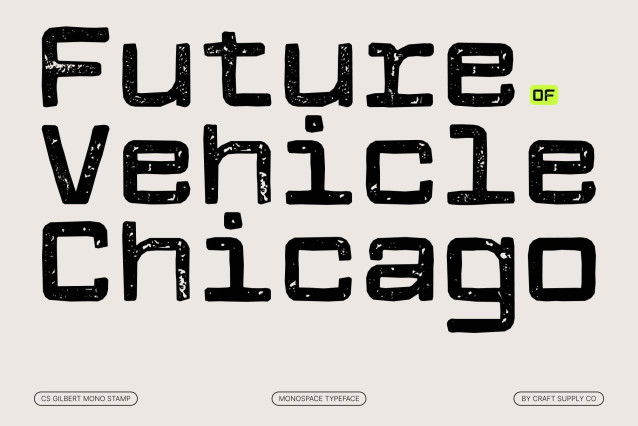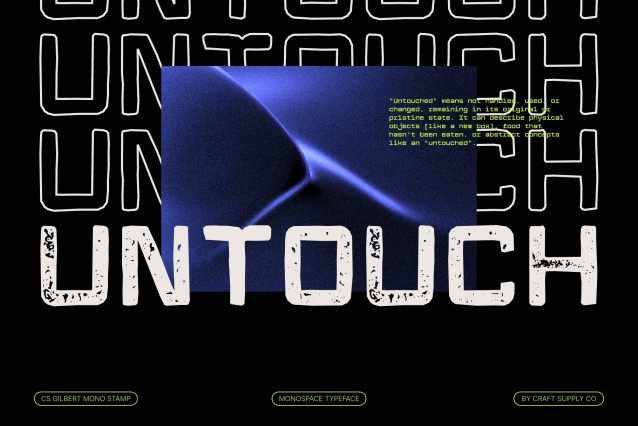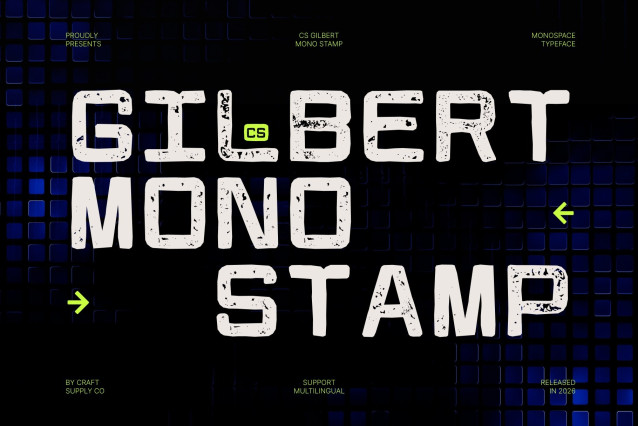
CS Gilbert Mono Stamp Font
Modern Monospaced Precision Font with Vintage Print Character
Geometric Monospaced Design with Stamp Texture
This is a modern monospaced sans serif font that combines geometric precision with a subtle vintage stamp effect. Each character maintains consistent width for perfect alignment, while the ink-pressed texture introduces an authentic printed feel that adds warmth and personality to its clean structure.
Enhanced Readability with Organic Imperfection
Designed for clarity and code structuring, the font’s uniform spacing supports easy scanning and effortless comprehension. The stamped texture softens the rigid geometry, creating a balance between technical precision and handcrafted charm ideal for environments where readability and character must coexist.
Professional Look with a Vintage Edge
While maintaining a sleek minimalist appearance, the stamp effect brings an artistic, slightly distressed finish reminiscent of classic typewriter prints and analog publishing. This gives the font a unique visual depth that feels both modern and timeless.